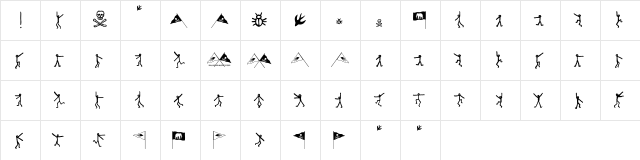
Semaphore1 Regular
Design Context for Semaphore1 Typeface
Semaphore1 is a composed and adaptable typeface that performs quietly and consistently across a wide range of design contexts.